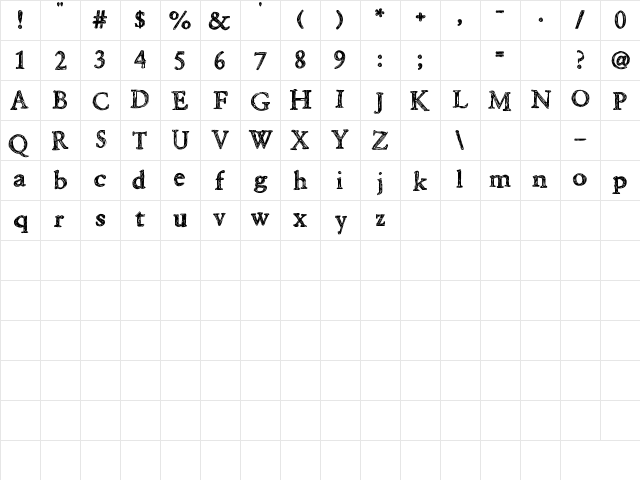
2Peas Barn Door 2Peas Barn Door Free Font
Foundry: High-Logic
Designer: High-Logic - Erwin Denissen 1999
Design Context for 2Peas Barn Door
2Peas Barn Door is a composed and adaptable typeface that performs quietly and consistently across a wide range of design contexts.